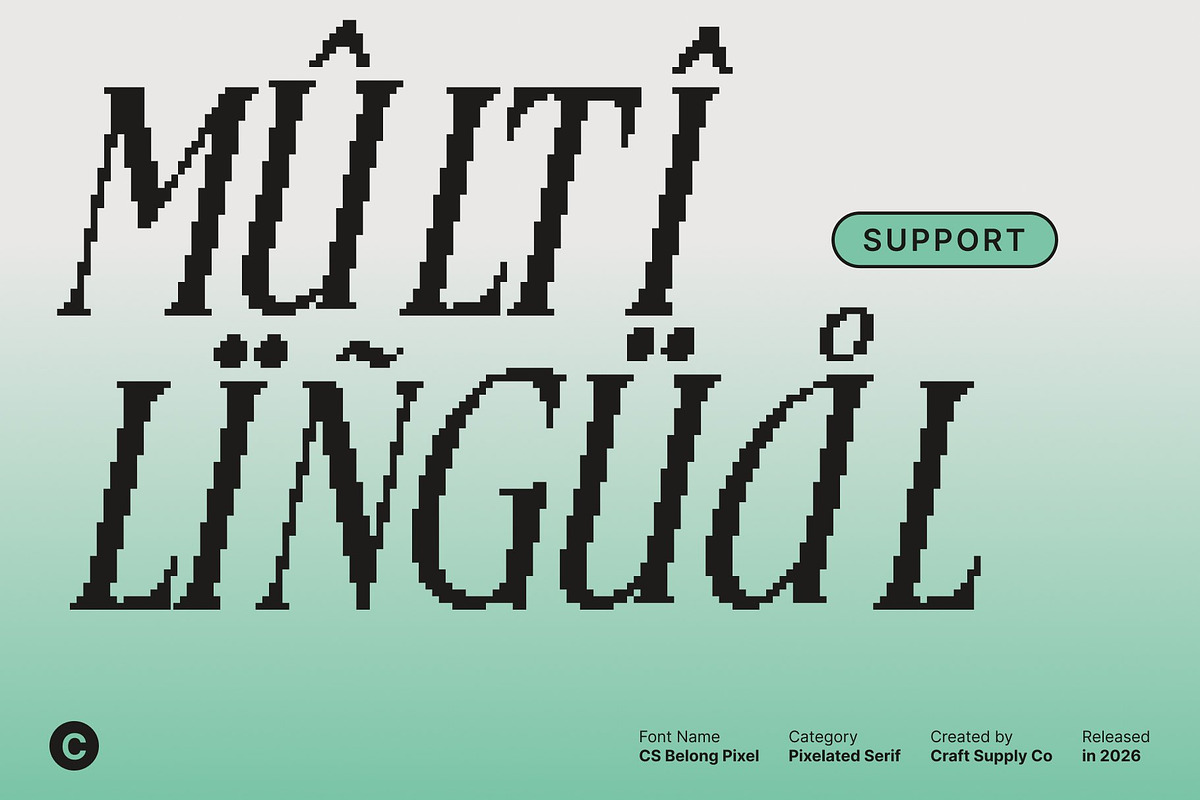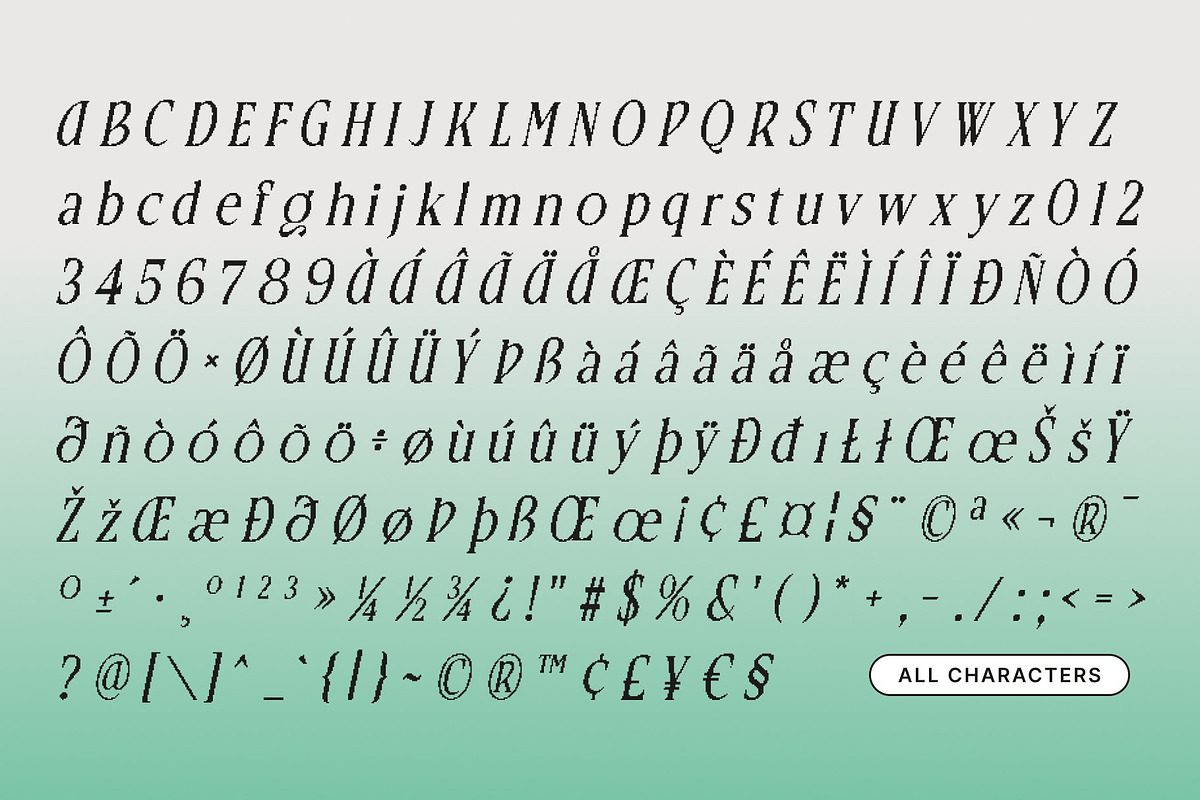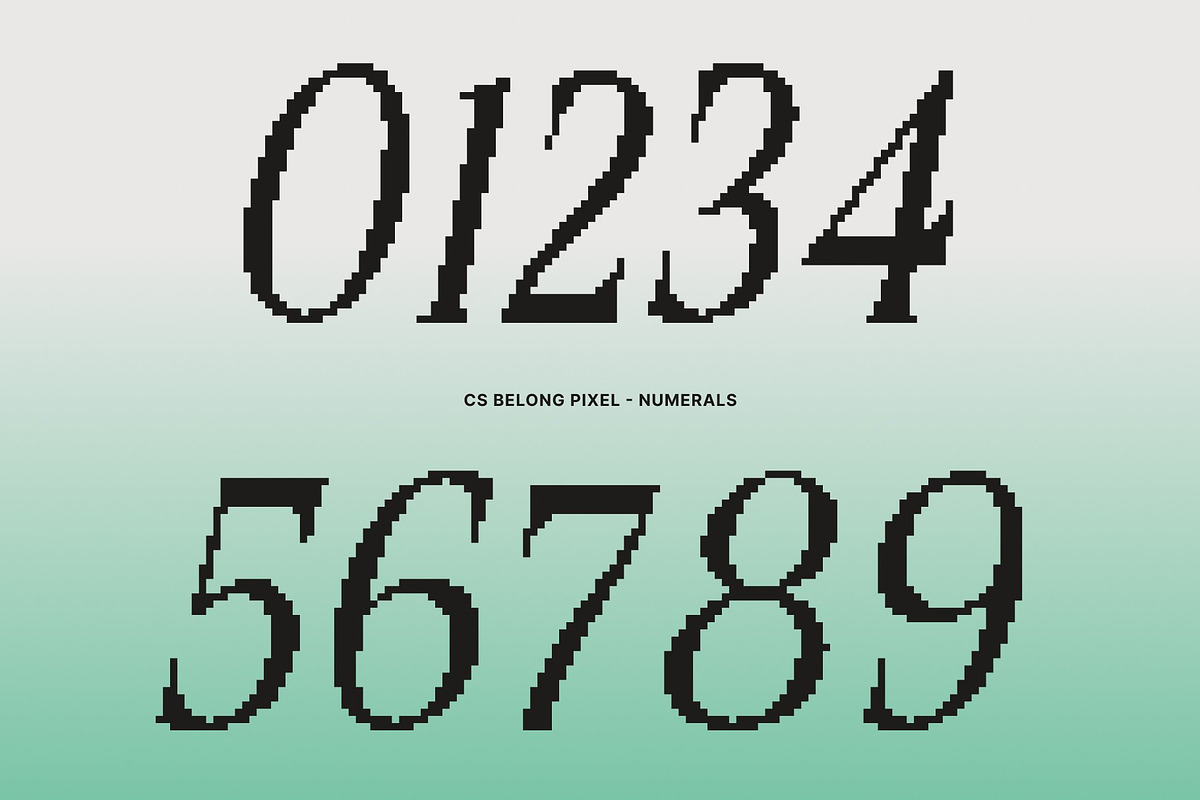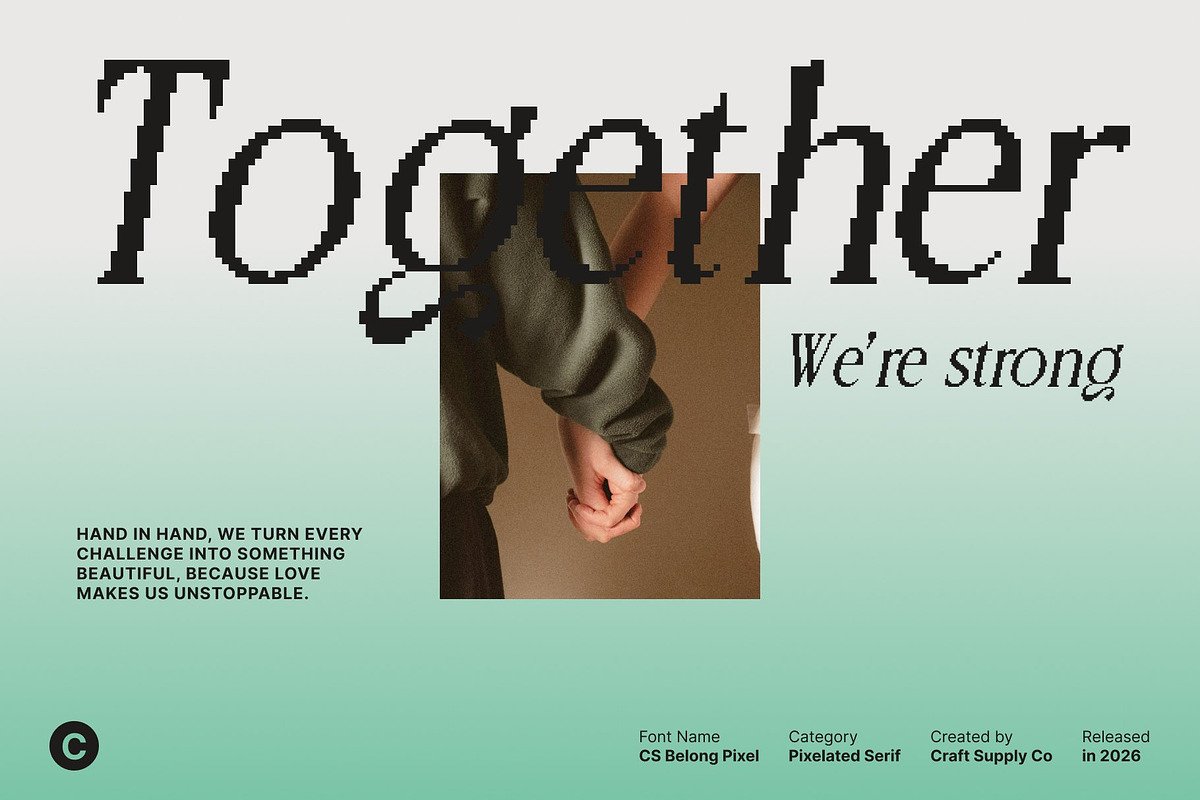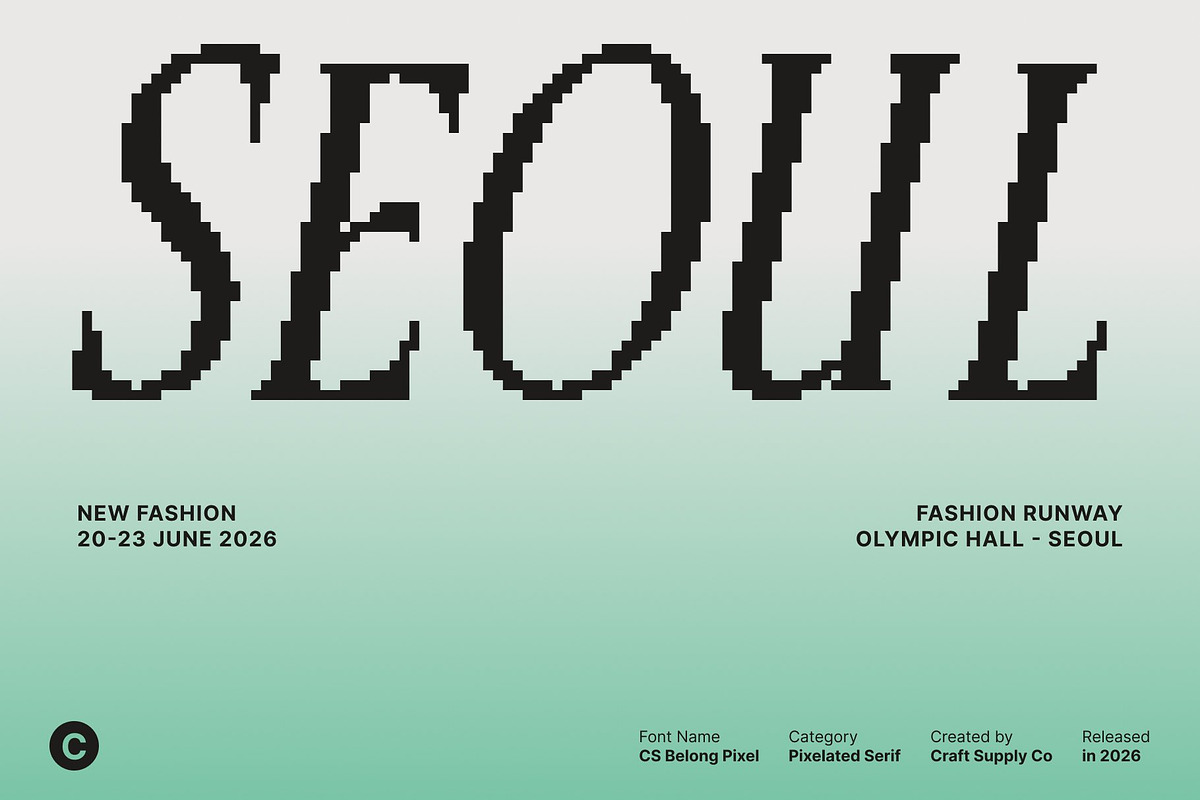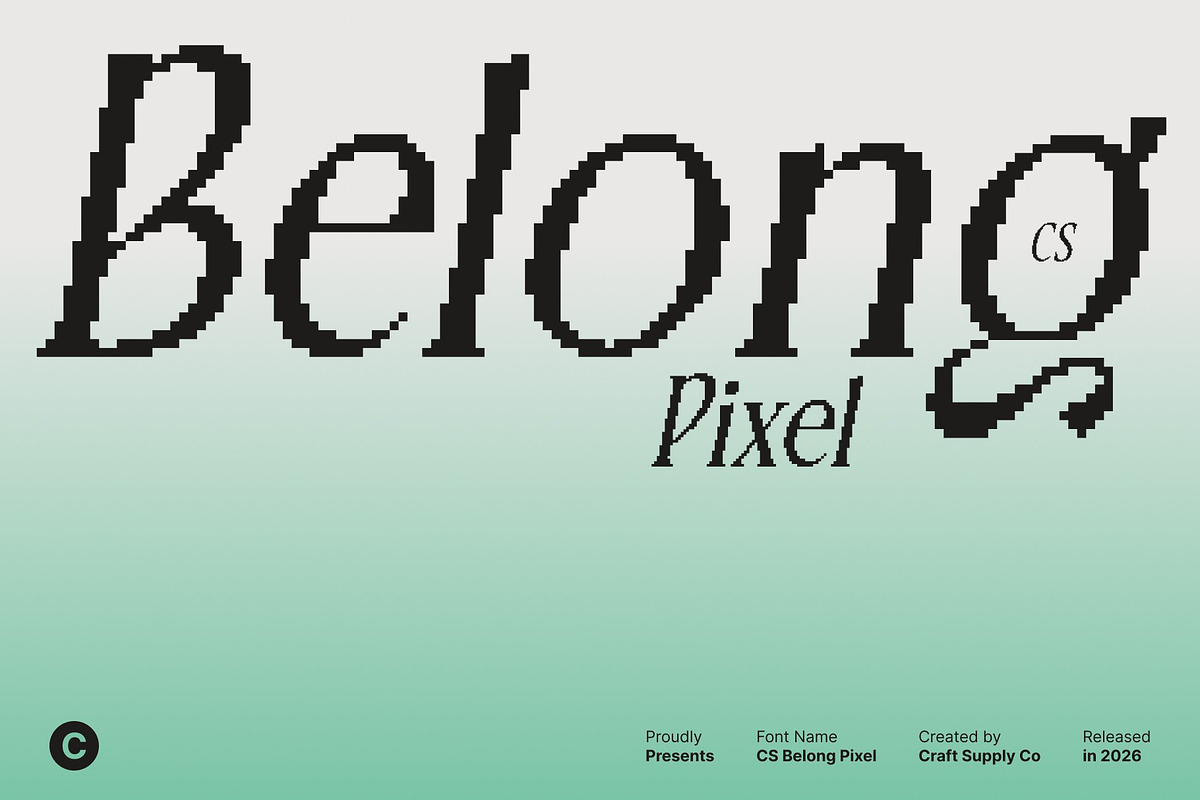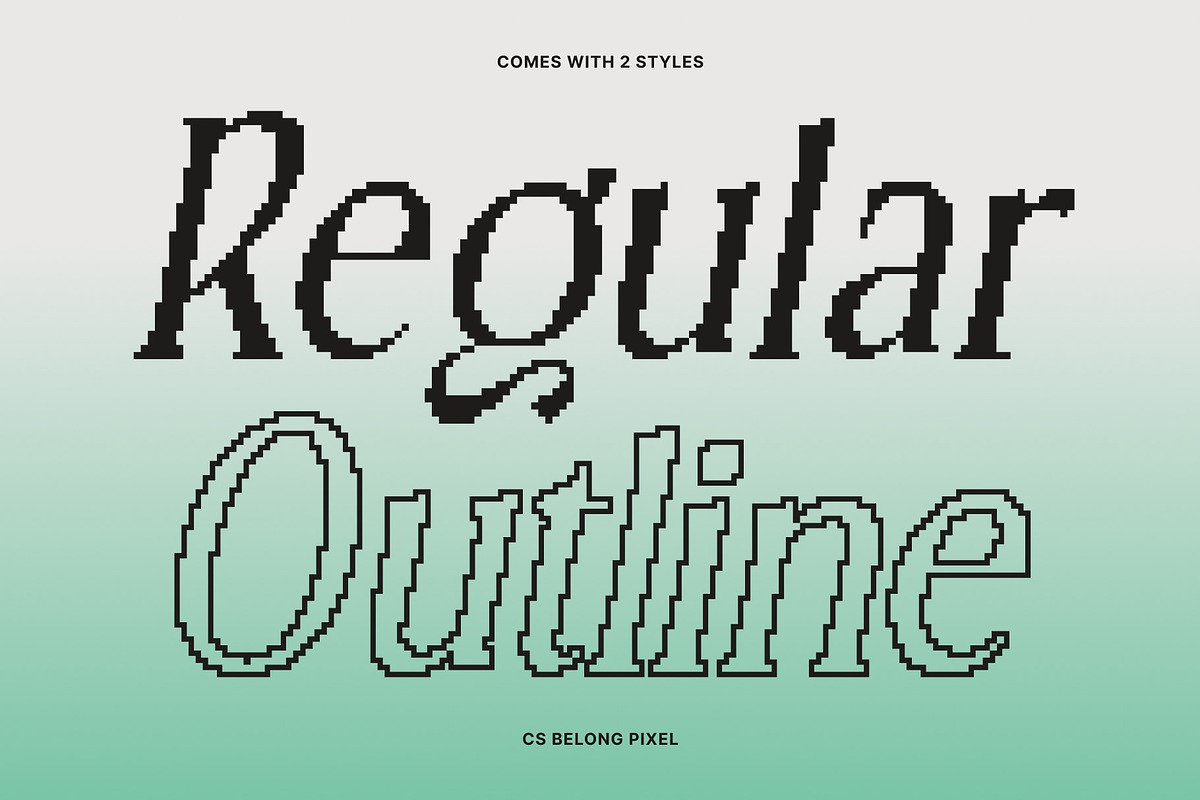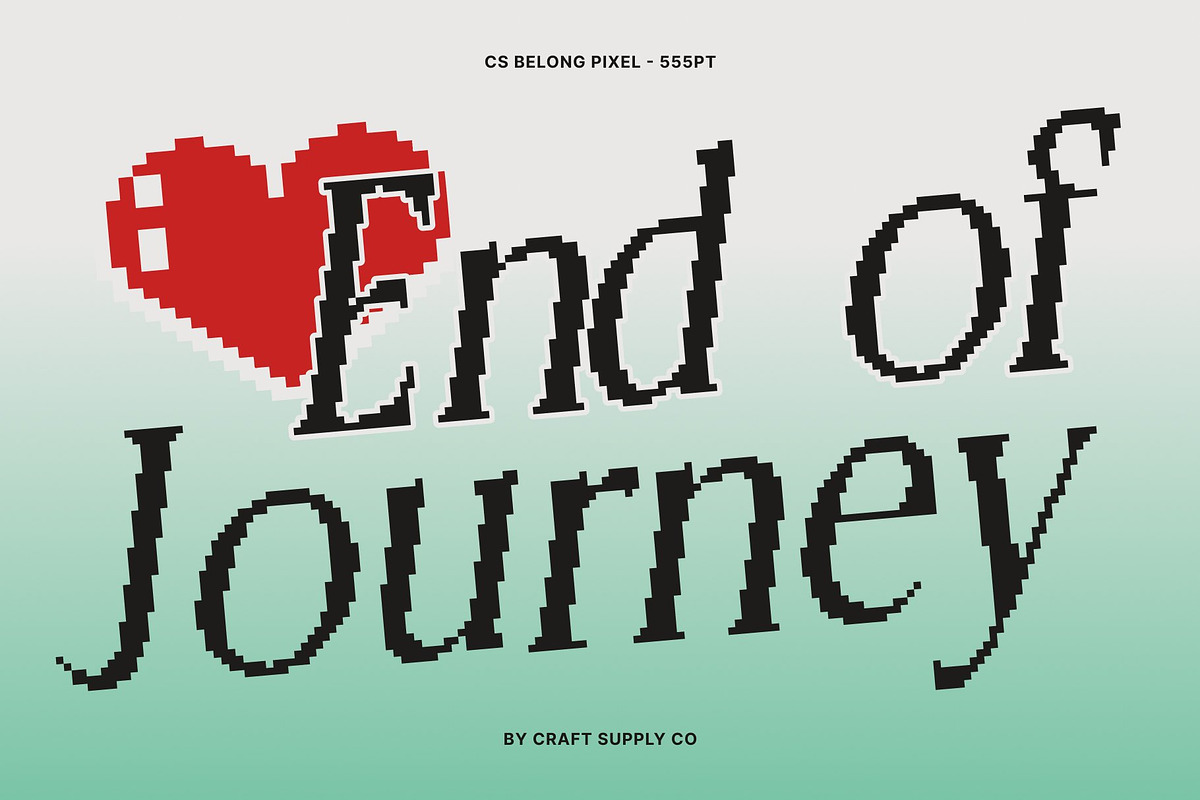
CS Belong Pixel
CS Belong Pixel – Contemporary Elegance with Luxurious Refinement
Elegant Serif with a Contemporary Pixel Identity This is an elegant serif font designed to express refined luxury through a modern digital lens. By combining graceful serif traditions with a pixel-inspired structure, this typeface delivers a unique balance between timeless sophistication and contemporary design culture.
Elongated Pixel Forms with Refined Curves The font is defined by elongated letterforms and carefully constructed curves translated into a pixel grid. This approach preserves elegance while introducing a structured, digital rhythm. The vertical emphasis adds height and refinement, while the pixel construction gives each character a crisp, modern edge. The result is a font that feels luxurious yet clean, decorative yet readable.
Modern Luxury with Digital Precision This font represents modern luxury through precision and restraint. Its elegant serifs and smooth pixel transitions create a sophisticated tone without excess ornamentation. The fusion of classic serif beauty and pixel clarity makes the font feel exclusive, contemporary, and visually confident ideal for brands that want to communicate refinement with a modern, tech-aware attitude.
Perfect for Luxury Branding, Editorials, and Premium Design Designed for high-end applications, this font excels in luxury branding, fashion editorials, premium packaging, and upscale marketing materials. Its refined serif style elevates headlines, logos, and layouts while the pixel influence adds a distinctive modern twist, making it perfect for elegant designs with a digital-forward identity.
- CS Belong Pixel Regular
- CS Belong Pixel Outline